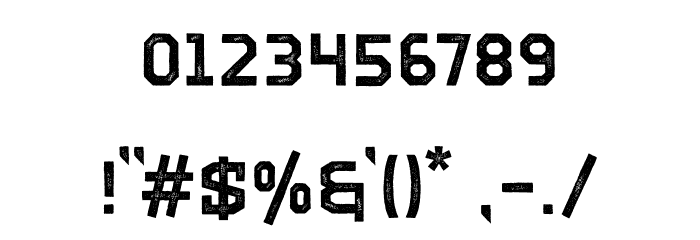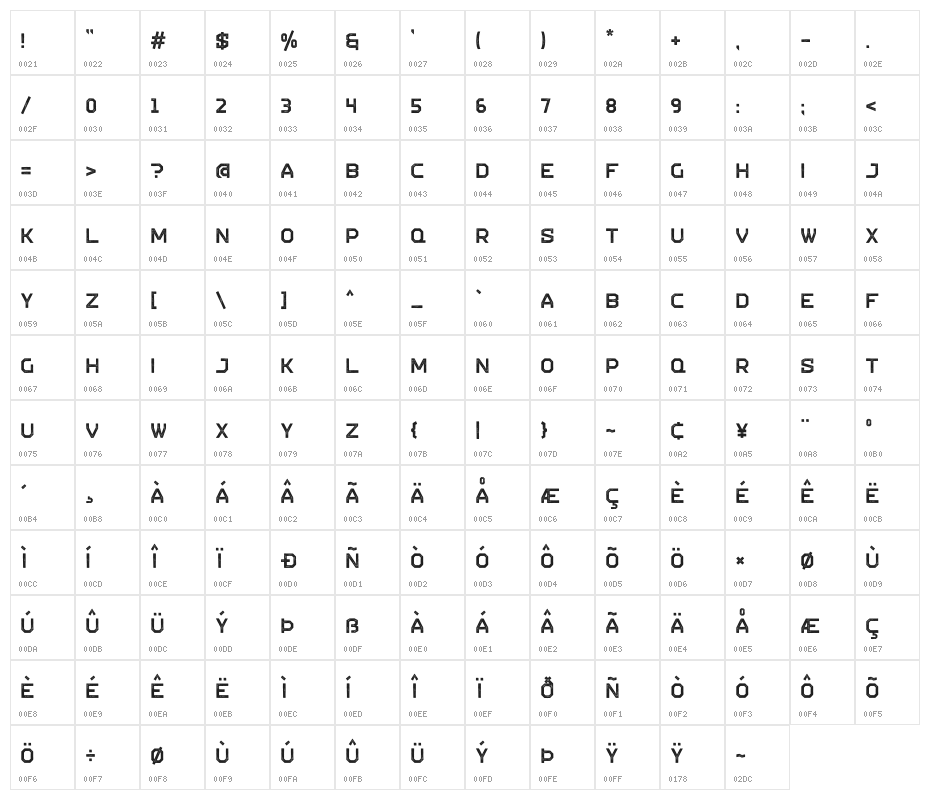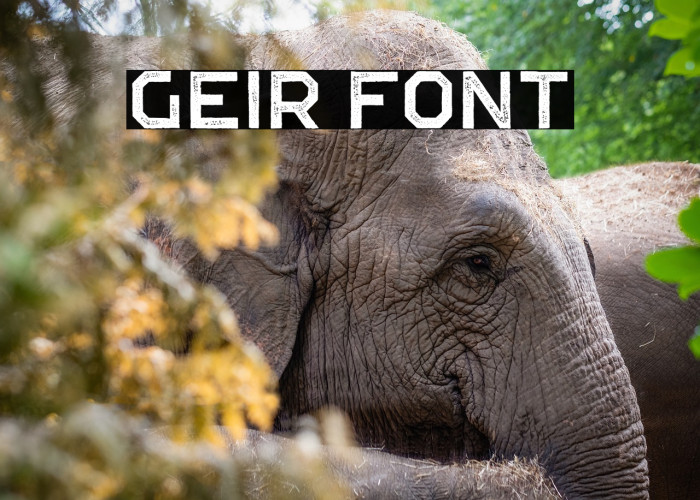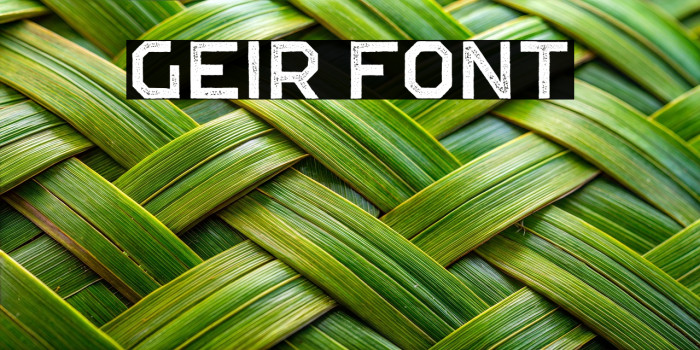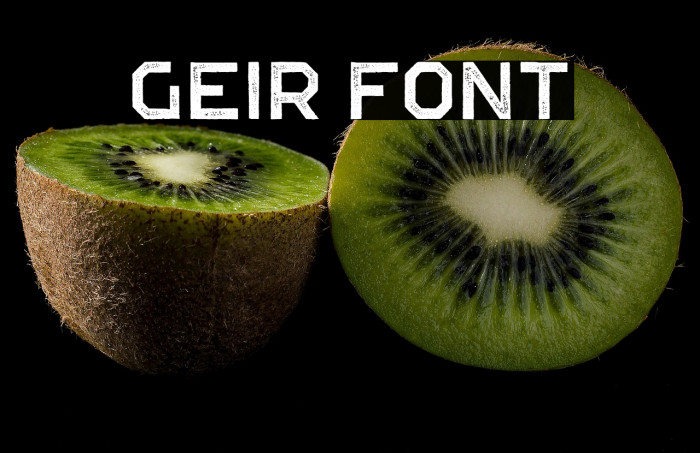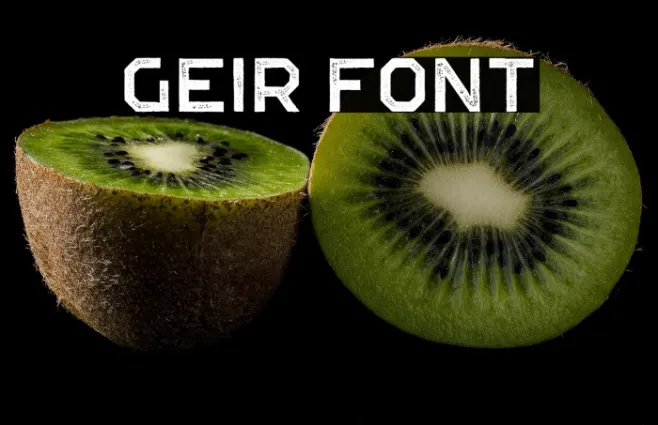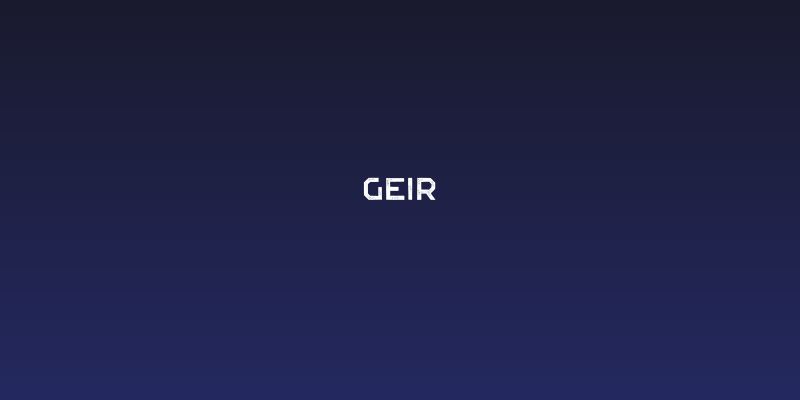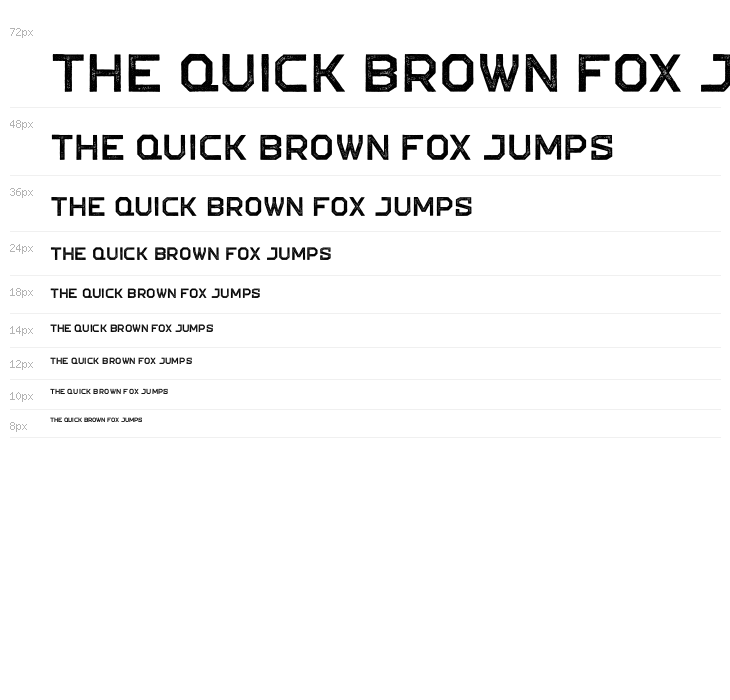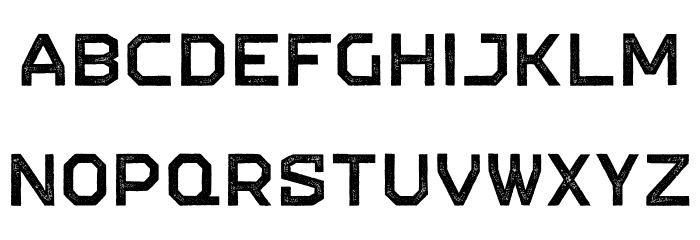
GEIR Font
GEIR Description
This font features a bold, geometric design with a distressed texture that gives it a rugged, industrial feel. The characters are constructed with straight lines and sharp angles, creating a sense of strength and stability. The distressed effect adds a layer of depth and character, making it suitable for projects that require a vintage or worn look. The uppercase letters are uniform in height, and the numerals are consistent with the overall style. Special characters are included, maintaining the same textured appearance. This font is ideal for creating impactful headlines, posters, and branding materials that need a bold statement.
| Overall Style | Vintage, Industrial |
| Proposed Projects | Ideal for posters, branding, and headlines requiring a bold, vintage look. |